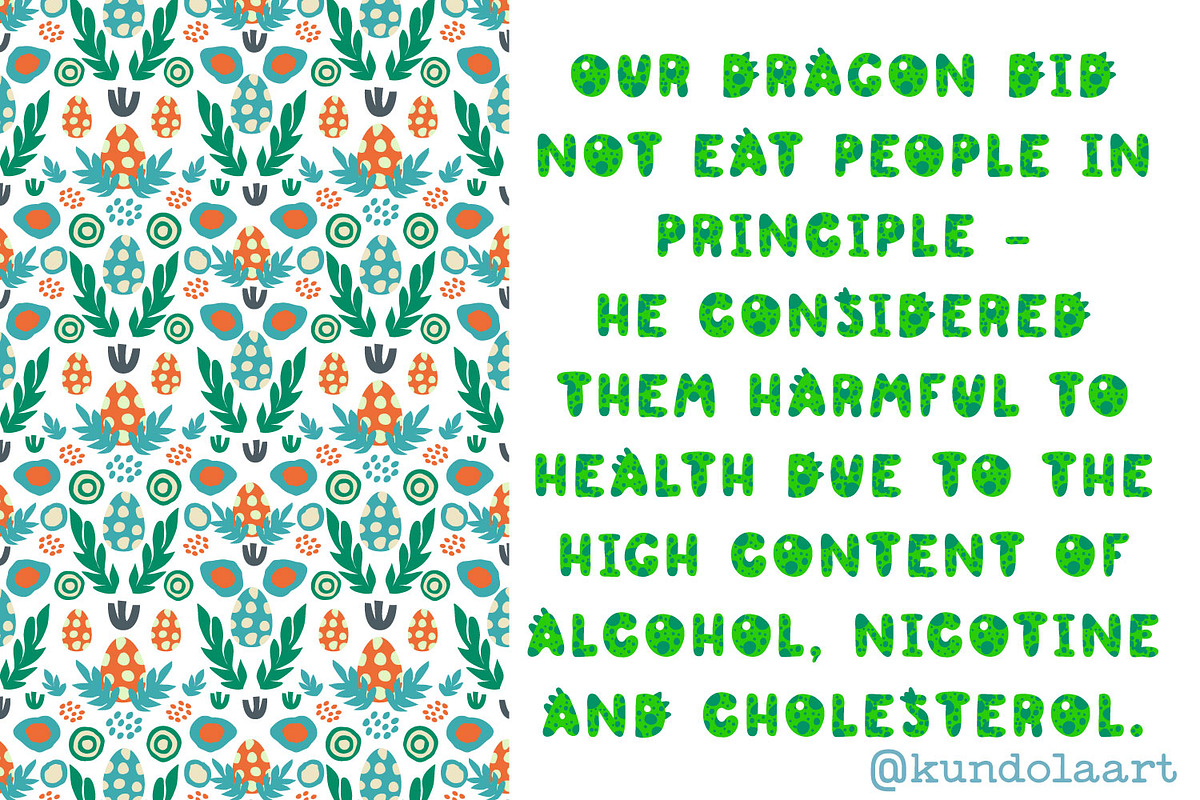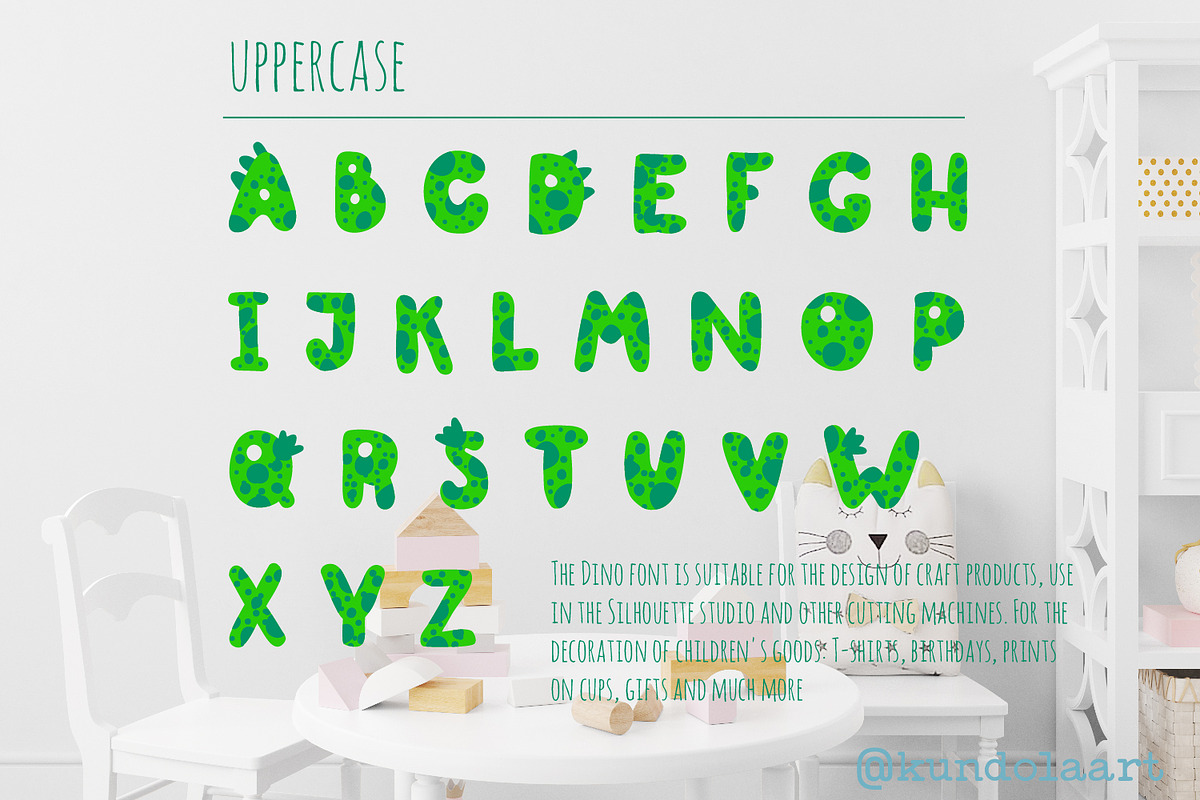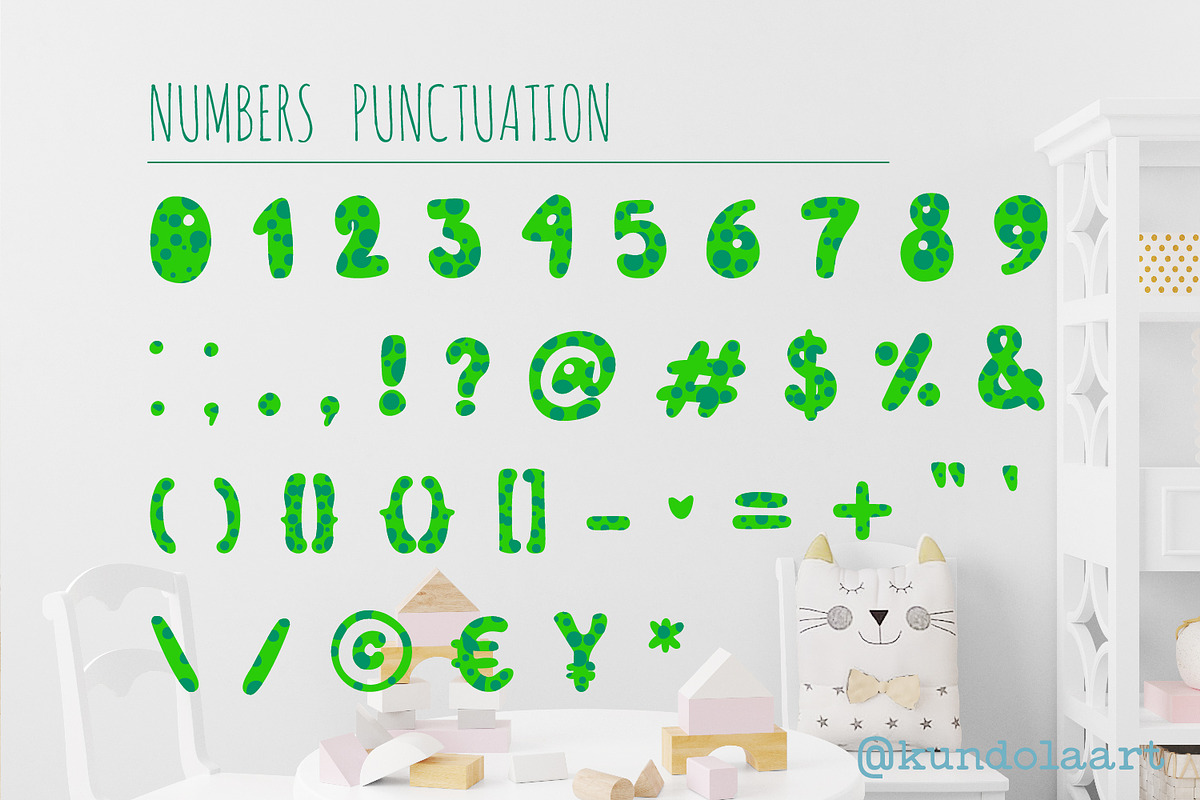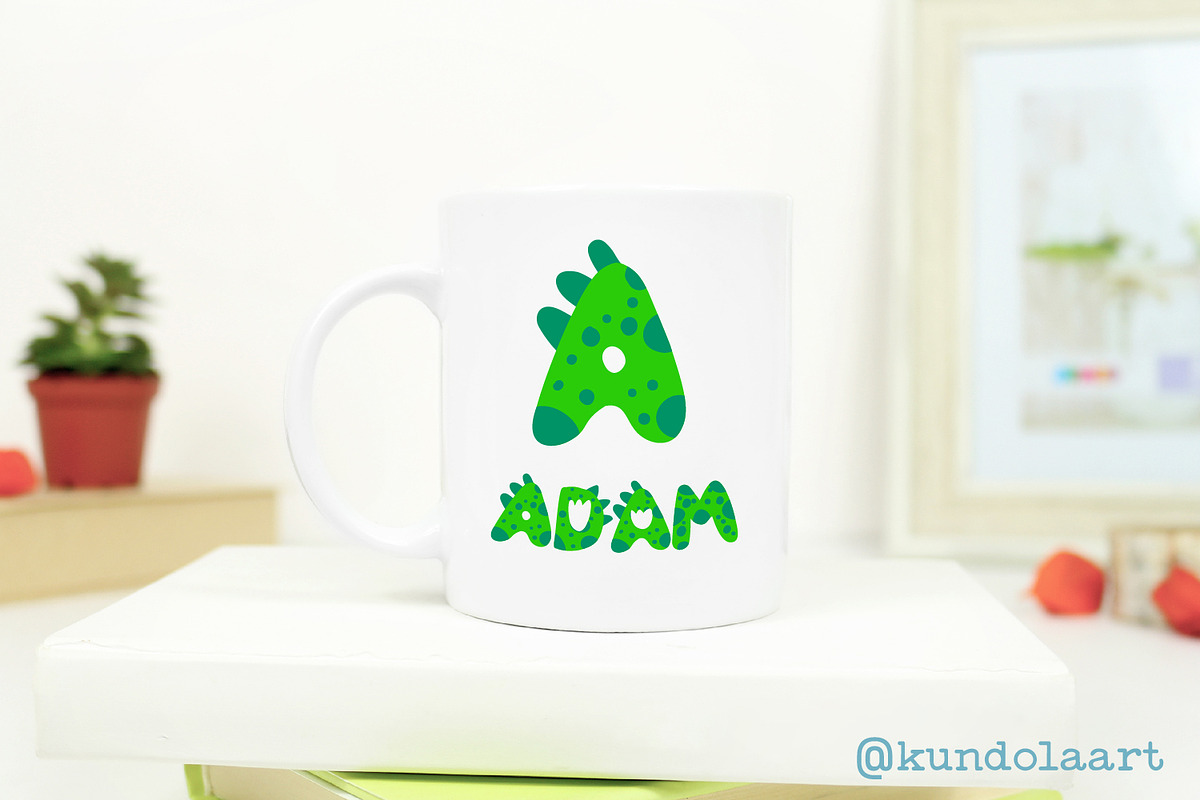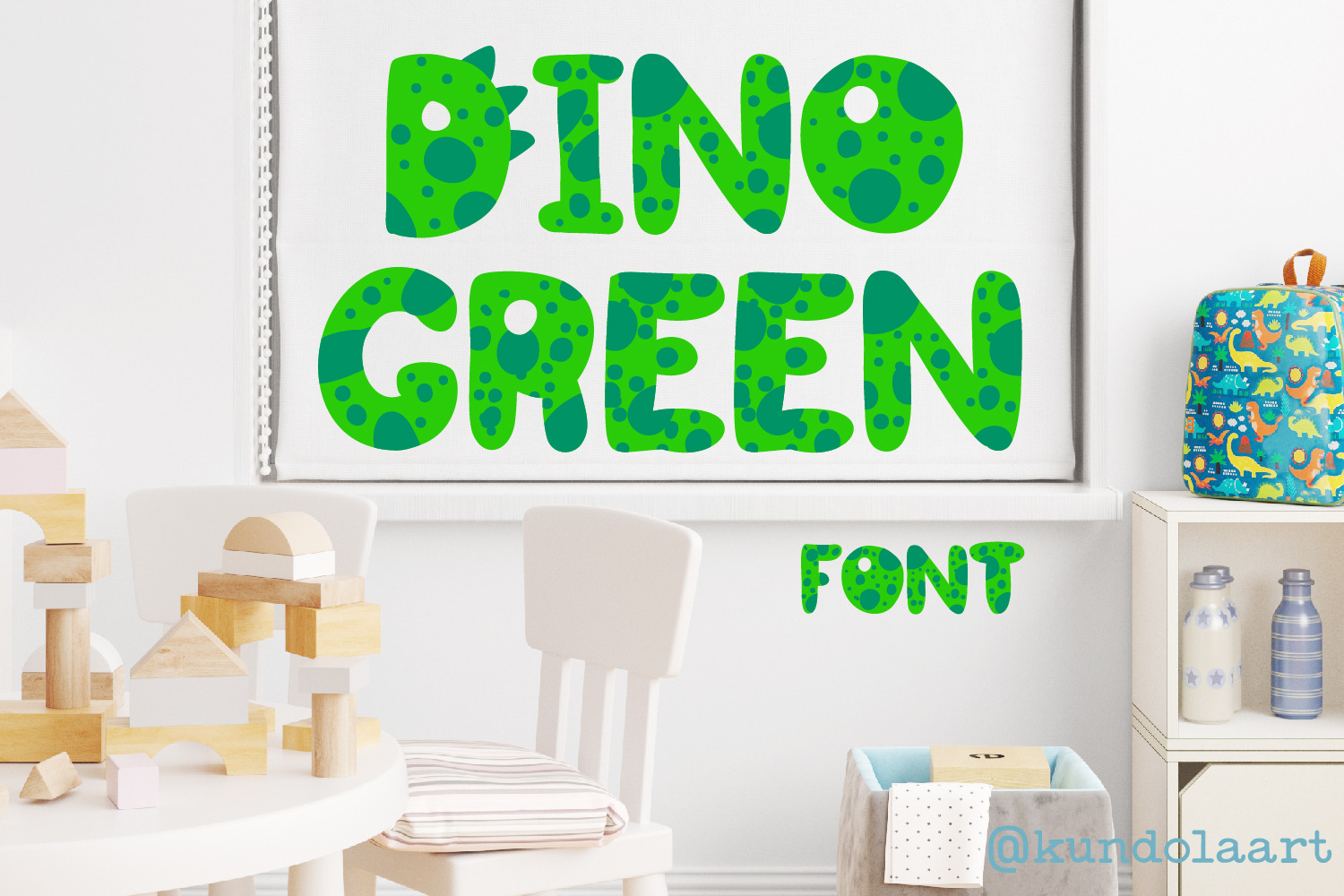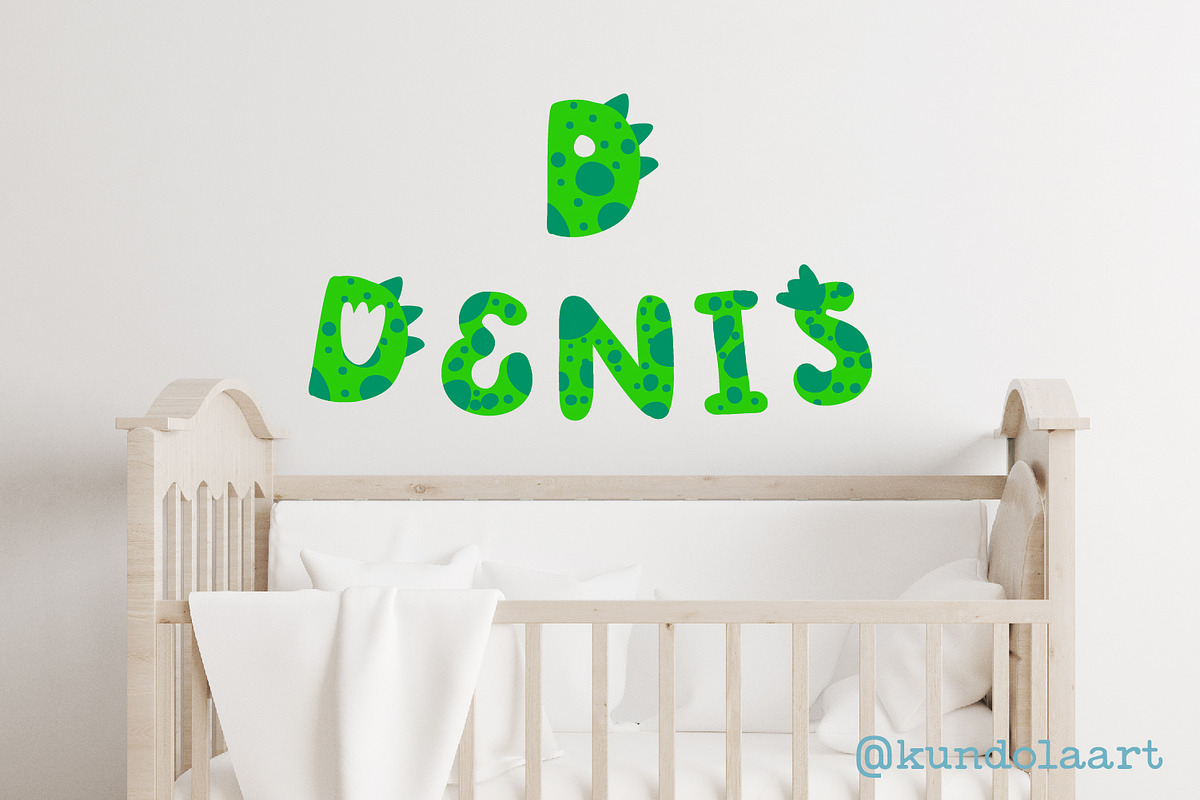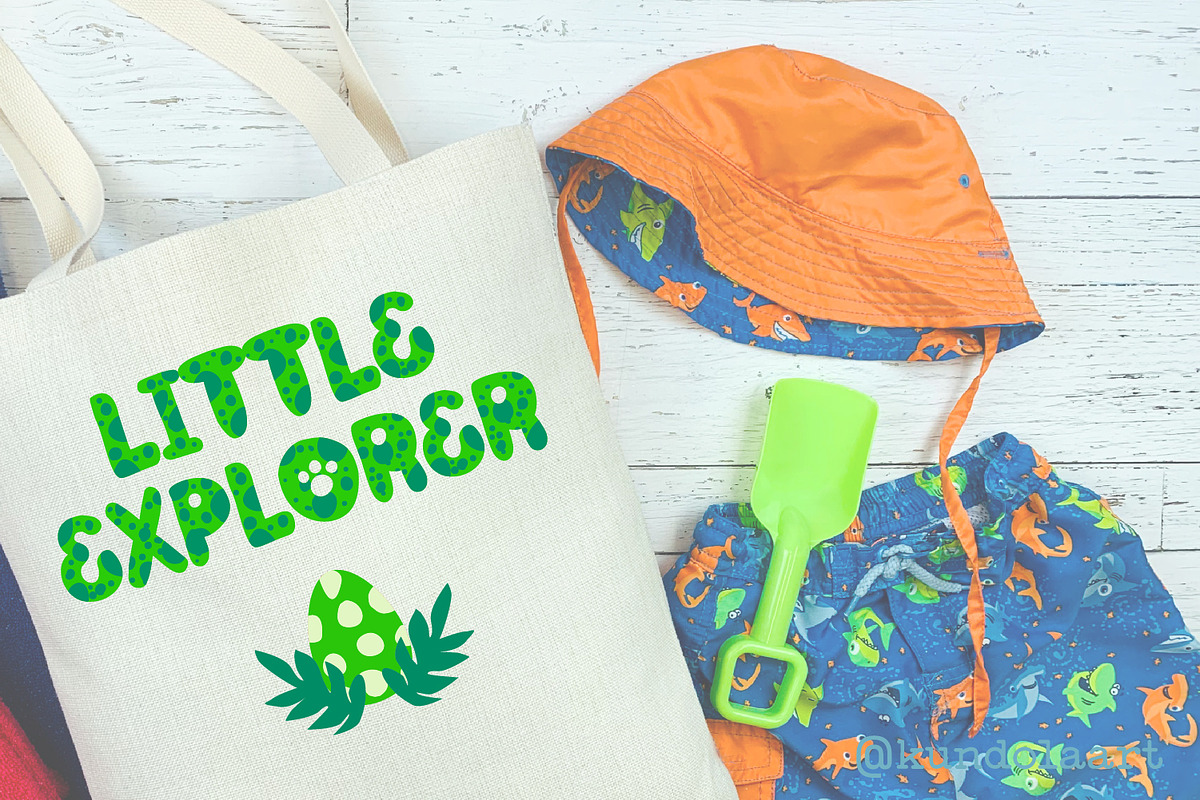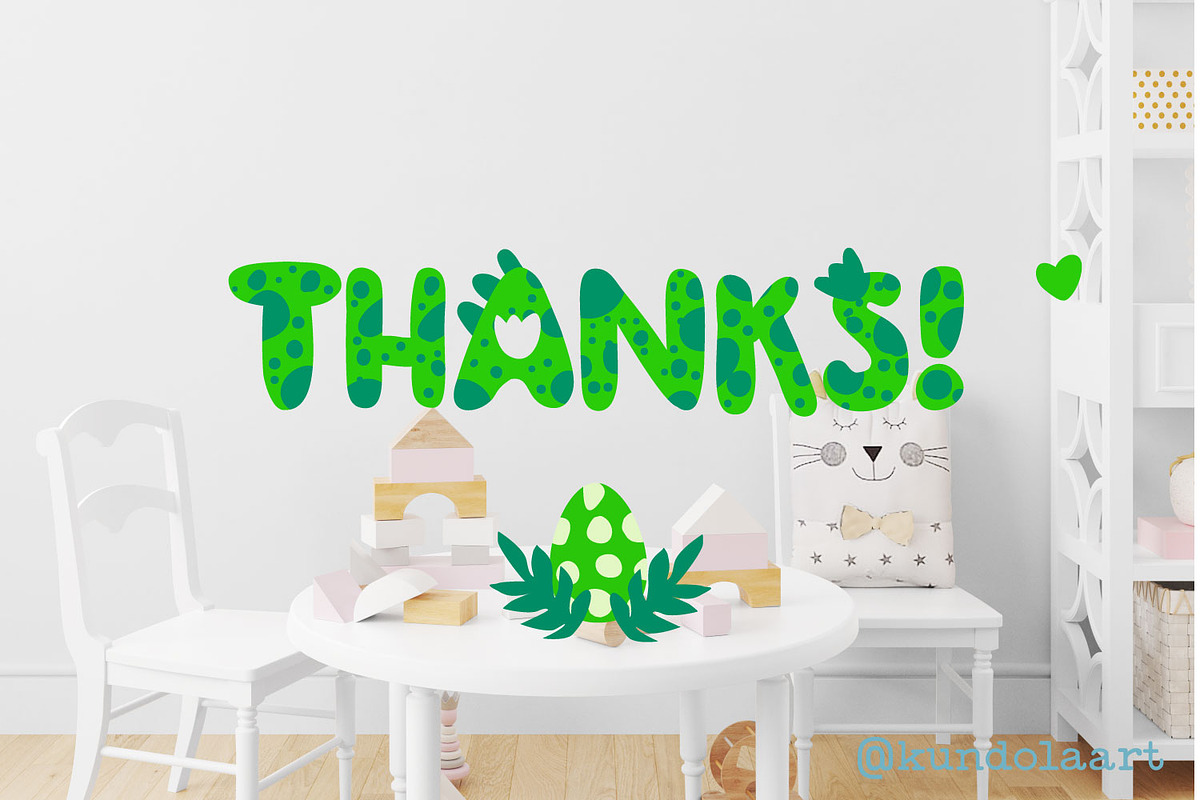
Dino green Font. Color cute dinosaur
Dino cute childish Font OpenType-SVG. Color dinosaurs alphabet. Color Display typeface.
Undoubtedly, kids will be fascinated by the hilarious funny dinosaurs. The Dino font is completely different from the usual one. The Dino is an incredibly cute display with thick letters. It's great for kids-themed designs, especially when paired with vibrant colors. Dino is a natural handwritten font. It's perfect for crafting, baby cards, invitations, stationery, social media posts, baby advertisements, product packaging, product design, labels, photography, watermarks, kids' activities.